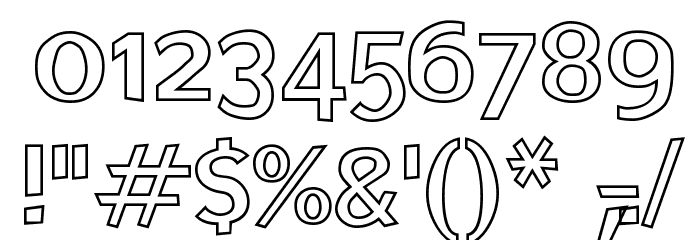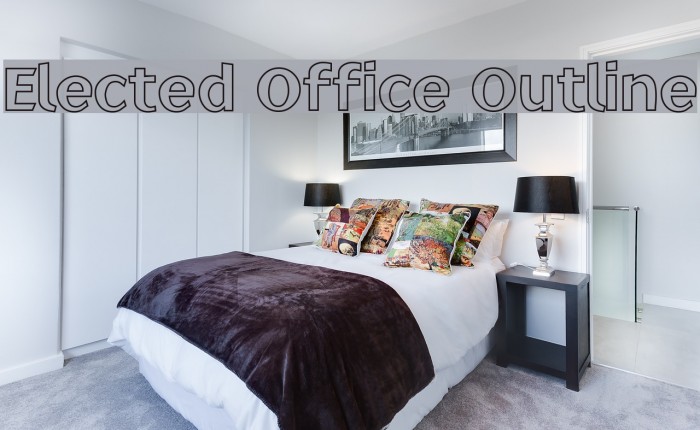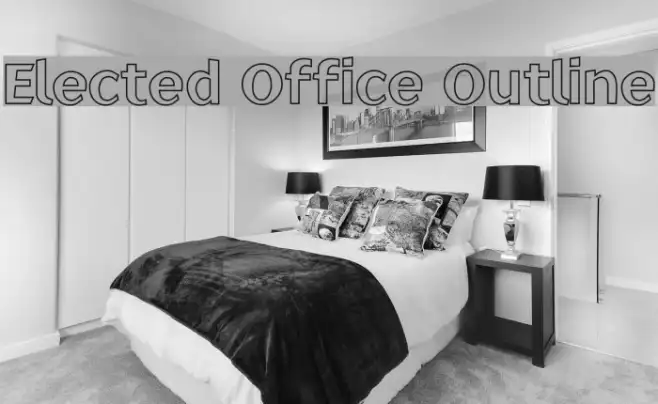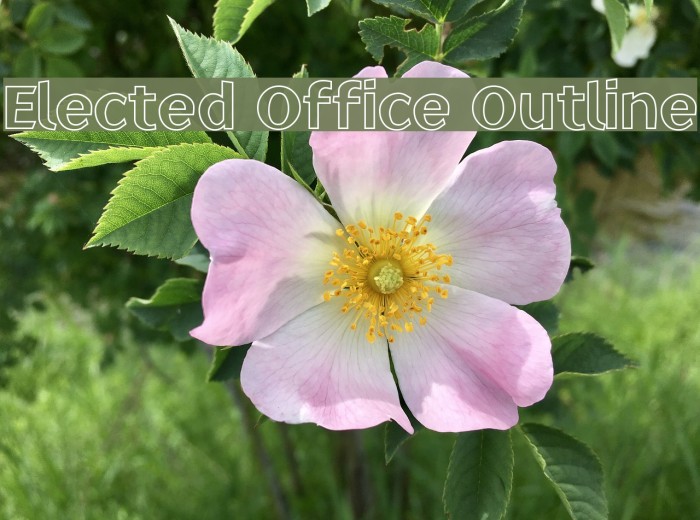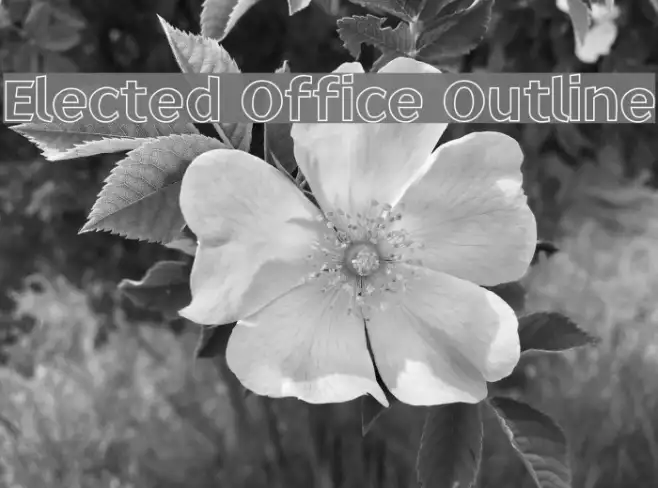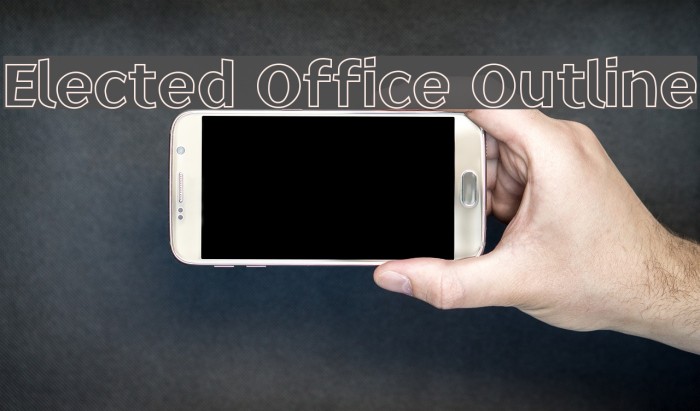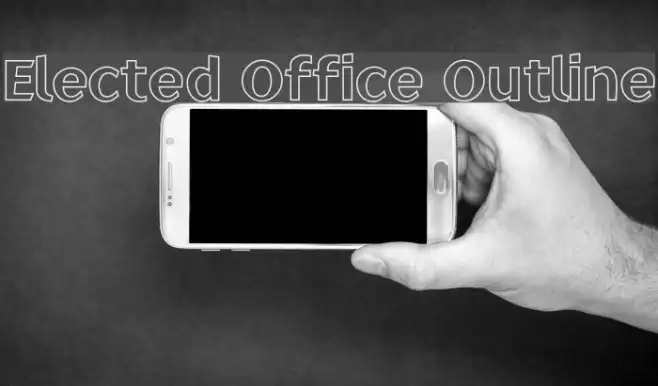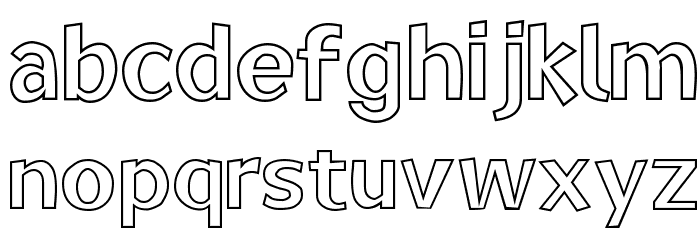
Elected Office Outline Font
This font features a modern, outlined style with clean and geometric letterforms. Each character is crafted with precision, offering a sense of clarity and openness. The uppercase and lowercase letters maintain a consistent design, ensuring readability while adding a unique flair. The numerals and special characters follow the same outlined aesthetic, making them stand out without overwhelming the viewer. This font's design is both contemporary and versatile, suitable for various creative applications.
A modern, outlined font with geometric and clean letterforms.
• Proposed Projects: Ideal for branding, posters, headlines, and digital media where a modern and distinctive look is desired.
• Category: Sans-Serif
• Bold: No
• Italic: No
• Weight: Regular
• Width: Normal
• Character Spacing: Normal
• Contrast: Low
• Overall Style: Modern
• Use Case: Headlines, Logos, Posters